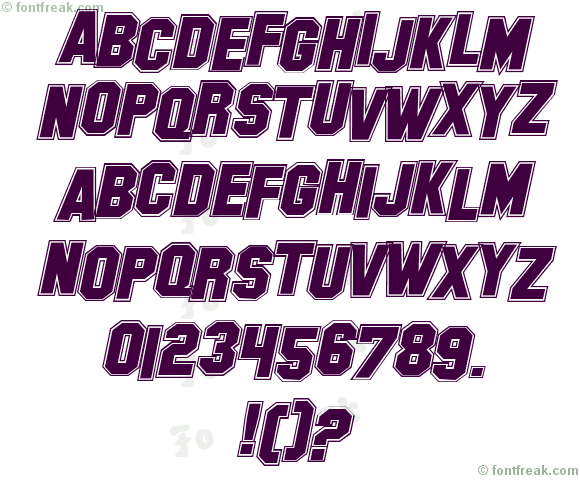
Collegerion
About Collegerion
Collegerion is a striking display font designed by Leonard Posavec, characterized by its bold, angular letterforms that convey a sense of energy and movement. This sans-serif typeface stands out with its strong stroke weight and minimal contrast, resulting in a robust and easily readable appearance. The letters are tightly spaced, enhancing the font's dynamic feel and making it perfect for attention-grabbing headlines and promotional materials.
The Collegerion font is particularly well-suited for a variety of creative applications. It can be effectively utilized in sports team branding, making it an ideal choice for jerseys and merchandise. Additionally, its bold aesthetic makes it perfect for movie posters, where it can convey excitement and intrigue. Restaurant menus can also benefit from this font, adding a modern twist that catches the eye. Event flyers and promotional graphics are other excellent use cases, as the font's distinctive look ensures that messages stand out in crowded environments.
Targeting graphic designers, small business owners, and content creators, Collegerion offers a versatile option for anyone looking to make a strong visual impact. Its unique style appeals to those who appreciate contemporary design and want to convey a sense of modernity in their projects.
What sets the Collegerion font apart is its ability to blend boldness with clarity. The design expertly balances strength and readability, making it a staple for anyone wishing to create compelling visual content. With a freeware license, users can access the Collegerion font free download, allowing for unlimited creative possibilities without financial constraints. This makes it an attractive option for anyone looking to elevate their design projects with a distinctive typeface.